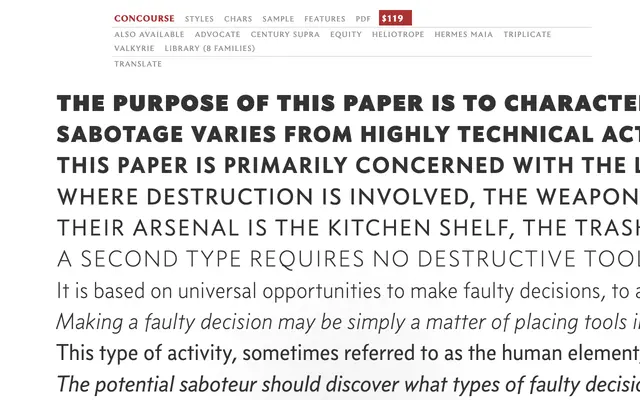
Concourse
A humanist sans-serif from MB Type designed for long-form reading in professional documents and on screen.
Created by Matthew Butterick for MB Type, Concourse is a humanist sans-serif built for document use and sustained on-screen reading. Its open apertures and calligraphic proportions keep it legible at text sizes without sacrificing character at display. Priced as a standalone family, it sits alongside Butterick's other text-focused releases including Equity and Triplicate.
Concourse is a humanist sans-serif drawn with calligraphic influences and open apertures typical of the humanist genre, designed for extended reading in documents and on screen.